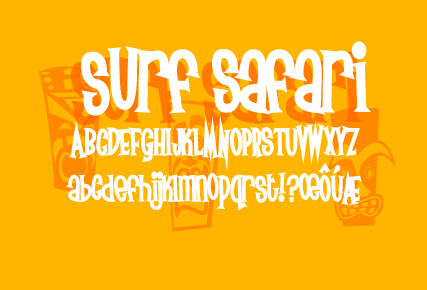
Surf Safari
About Surf Safari
Super sexy summer font for your wild beach party flyers. Little tiki masks fill up the spaces where I didn\’t want to make the letters! But stay calm, there are plenty of letters to use! Total capital and lowercase, all useful punctuation, and a healthy…